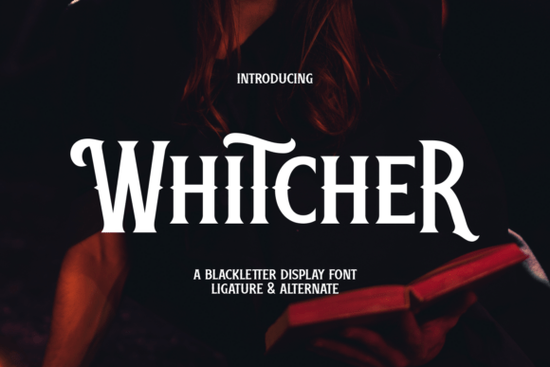
If you've been searching for a typeface that captures the mood of dark fantasy and gothic storytelling, the Whitcher font is worth a close look. It's a bold blackletter display typeface with sharp vertical strokes, sweeping curves, and magical ligature alternates that give it a distinctly mystical feel. Whether you're designing a book cover, a game logo, or branding for a fantasy-themed project, this font brings that medieval atmosphere without feeling outdated.
What kind of design projects work well with a gothic blackletter font like this?
Blackletter fonts have a long history in print and design, and they continue to be popular for projects that need a strong visual identity with a dark or vintage edge. The Whitcher typeface fits naturally into several categories:
- Dark fantasy book covers Its sharp letterforms and ornate alternates give titles a spellbinding, storybook quality.
- Video game titles and UI elements Works well for RPGs, adventure games, or any project with a medieval or supernatural theme.
- Branding for specialty businesses Think craft breweries, tattoo studios, escape rooms, or occult-inspired product lines.
- Print-on-demand products T-shirts, mugs, and posters with gothic quotes or vintage logotypes look great with this style.
- Event invitations and posters Halloween parties, themed weddings, or theatrical productions benefit from a dramatic typeface.
If your project calls for something that feels powerful and a little mysterious, this style of elegant blackletter display font delivers that effect consistently.
What makes this typeface different from other blackletter fonts?
There are plenty of blackletter and gothic fonts available, so what sets this one apart? A few details stand out:
- Magical ligature alternates When you type certain letter combinations, the font swaps in ornate alternate characters automatically. This gives your text a hand-crafted, enchanted look without extra effort.
- Modern edge with traditional roots It respects the structure of classic gothic letterforms but adds cleaner proportions and more readable shapes, making it usable beyond pure display work.
- Bold weight The thick strokes hold up well at large sizes on screen and in print, which is exactly what you want for titles, headers, and logos.
Compared to other options in the same space, like the Ragnar font or the Sam font, Whitcher leans more heavily into its fantasy character. The ligatures and curve details give it a personality that's hard to replicate with standard gothic typefaces.
How do I pair this font with other typefaces?
A display font like this works best for headings and short text. For body copy or supporting text, pair it with something clean and readable. Here are a few combinations that work well:
- With a simple serif A classic serif for body text creates a cohesive, traditional feel.
- With a clean sans-serif A modern sans-serif underneath a bold blackletter heading creates a nice contrast that feels balanced and intentional.
- With a handwritten script For fantasy or mystical themes, a flowing script font can add a secondary layer of personality.
The key is to let this typeface be the focal point. It has enough visual weight on its own that you don't need competing decorative fonts in the same layout.
Is this font a good fit for print-on-demand sellers?
Absolutely. If you sell on platforms like Merch by Amazon, Redbubble, or Etsy, having a gothic blackletter option in your font library opens up a whole category of designs. Customers actively search for dark fantasy, medieval, gothic, and witchy aesthetic products. A typeface like this lets you create text-based designs that tap directly into those trends.
Quick checklist before you start designing
- Test your text Type out your full title or phrase to see how the ligatures and alternates render.
- Choose your pairing font Pick a secondary typeface that complements without competing.
- Set the right size Use this font large. It's a display typeface, so small sizes will lose detail.